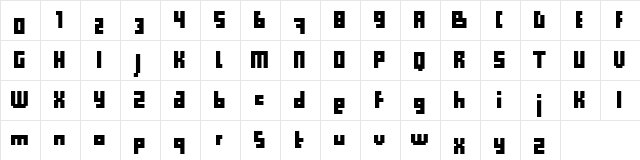
Computer Aid Condensed
| Foundry | Dker |
Design Context for Computer Aid Typeface
Computer Aid is a composed and adaptable typeface that performs quietly and consistently across a wide range of design contexts. The condensed width makes it efficient for tight spaces without sacrificing legibility.